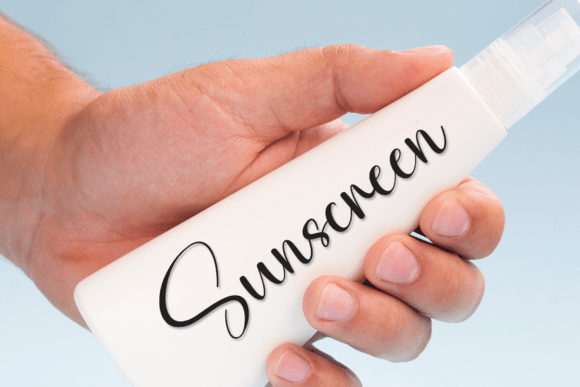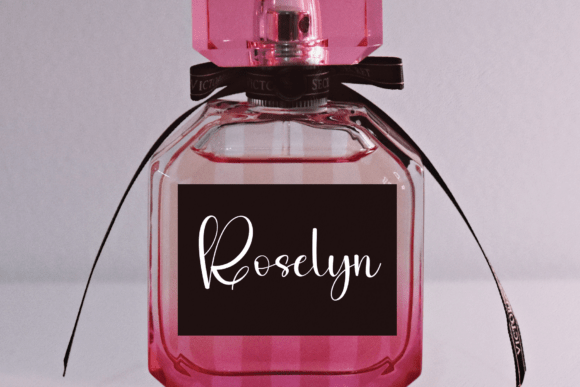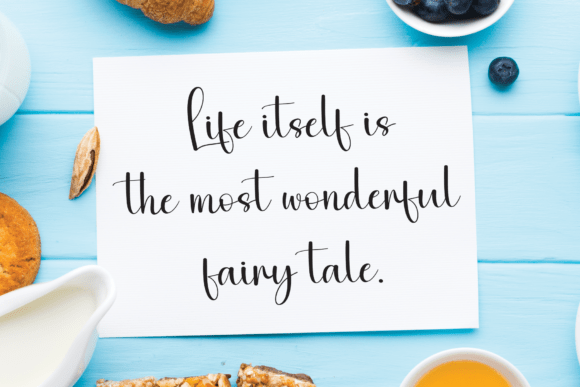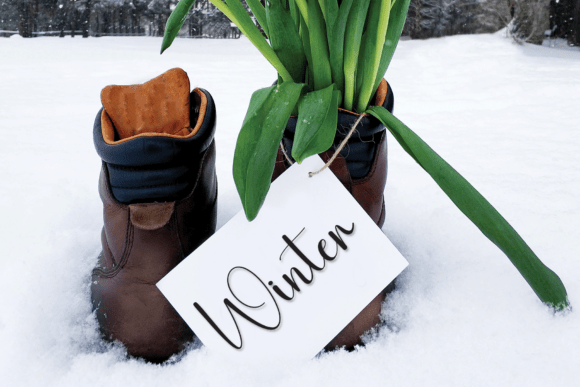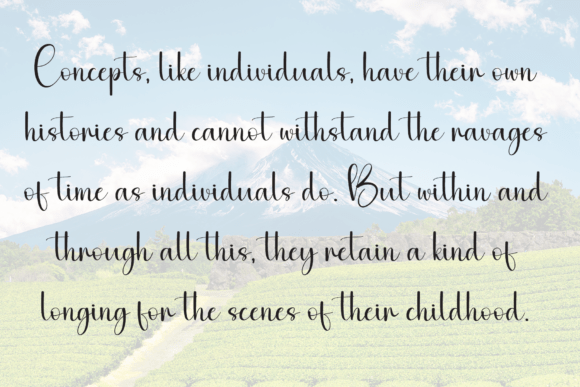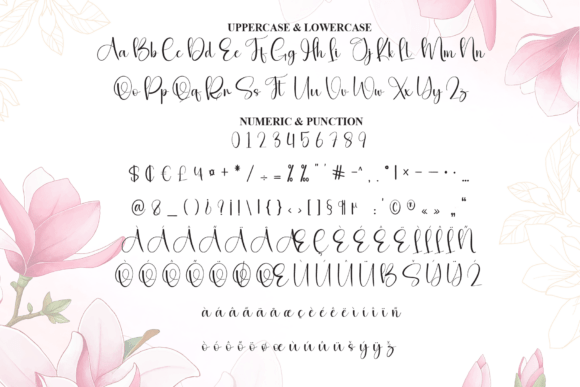
Discover the Charm of Bestya Font: A Sweet and Playful Handwritten Display Font
Are you looking for a font that can add a touch of warmth and personality to your design projects? Look no further than Bestya Font, a beautiful handwritten display font that exudes a gentle charm and playful vibe. In this article, we’ll introduce you to the Bestya Font, exploring its unique features, uses, and benefits, and show you why it’s the perfect choice for crafty designers and makers.
The Story Behind Bestya Font
Bestya Font is an enchanting blend of sweetness and playfulness, carefully crafted to align with your heartwarming creativity. Its affable and friendly design makes it an ideal choice for creating endearing wedding invitations, heartfelt cards, and other design projects that require a personal touch. With Bestya Font, you can evoke joy and friendliness in your designs, making it a perfect fit for crafty designers and makers who want to add a human touch to their work.
Key Features of Bestya Font
So, what makes Bestya Font so special? Here are some of its key features:
- Handwritten design: Bestya Font boasts a beautiful handwritten design that adds a personal touch to any project.
- Gentle charm: The font’s gentle charm makes it perfect for creating heartwarming and endearing designs.
- Playful vibe: Bestya Font has a playful vibe that adds a touch of fun and whimsy to any design.
- Versatile: The font is versatile and can be used for a wide range of design projects, from wedding invitations to cards, posters, and more.
Uses of Bestya Font
Bestya Font is a versatile font that can be used for various design projects, including:
- Wedding invitations: Create beautiful and heartwarming wedding invitations that set the tone for a romantic and memorable day.
- Cards and stationery: Design personalized cards and stationery that showcase your creativity and add a touch of warmth to any occasion.
- Posters and flyers: Use Bestya Font to create eye-catching posters and flyers that grab attention and convey your message in a playful and engaging way.
- Social media graphics: Add a personal touch to your social media graphics and make them stand out with Bestya Font.
Benefits of Using Bestya Font
So, why choose Bestya Font for your design projects? Here are some benefits of using this beautiful font:
- Easily readable: Bestya Font is easy to read, making it perfect for designs that require a clear and concise message.
- Customizable: The font is highly customizable, allowing you to adjust its size, color, and style to fit your design needs.
- Unique and creative: Bestya Font adds a unique and creative touch to any design, setting it apart from more traditional fonts.
- Time-saving: With Bestya Font, you can create beautiful designs quickly and efficiently, saving you time and effort.
In conclusion, Bestya Font is a beautiful handwritten display font that radiates a gentle charm and playful vibe. Its unique features, versatility, and benefits make it an ideal choice for crafty designers and makers who want to add a personal touch to their design projects. Whether you’re creating wedding invitations, cards, posters, or social media graphics, Bestya Font is the perfect choice for delivering a delightful touch to any design.